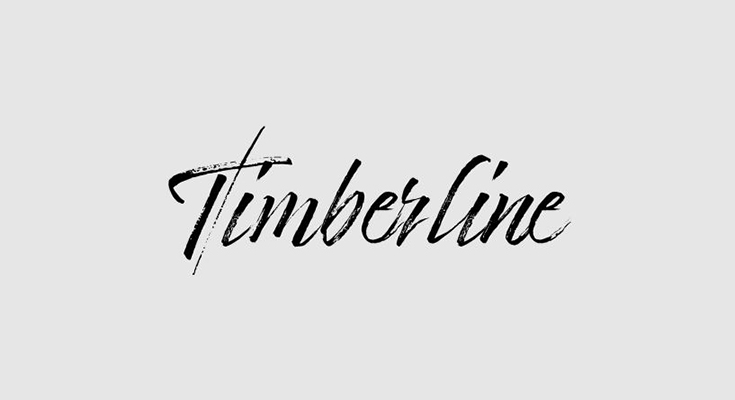
Here we have Timberline Font, a casual and brush script typeface that will give your designs a natural handwritten look.
This display font was designed by Giuseppe Salerno and Paco González. And it was published by Resistenza.
It has a great texture that is created by the designer with a brush. This is why you will get a rough look at the excellent quality of every letter.
It comes in two weights that also support uppercase and lowercase letters, numbers, punctuations, alternates, ligatures, and multilingual support.
Use this font for your logo designs, movie titles, log headers, social media posts, logos, quotes, movie posters, or headers, and it will surely add an element of joy to any design you use it on.